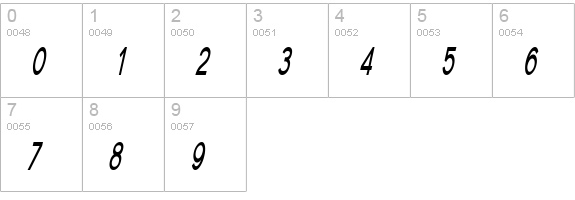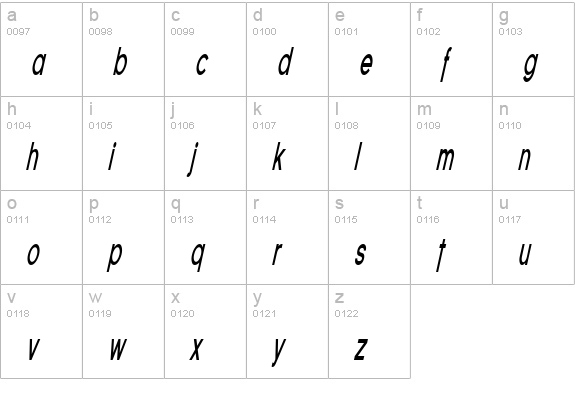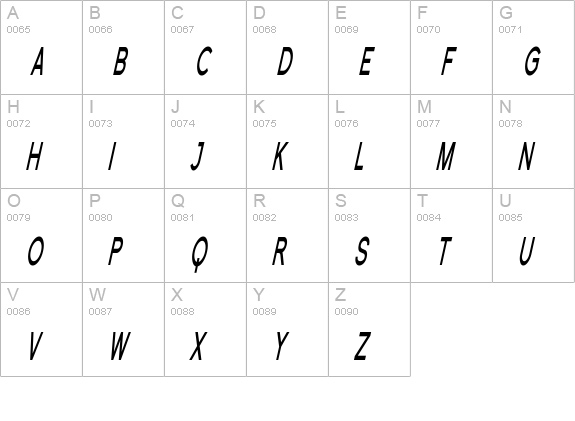
Florencesans Comp Bold Italic Font Details
Florencesans Comp Bold Italic is a strong, high-contrast, italic variant in the Florencesans typeface family \xE2\x80\x94 well suited to headlines, attention-grabbing titles, and strong calls-to-action.
Florencesans Comp Bold Italic is a modern and sophisticated typeface that exudes elegance and professionalism. Its bold yet graceful design makes it perfect for adding a touch of luxury to any project. The italicized style adds a sense of dynamism and flair, making it ideal for conveying a sense of creativity and innovation. This font is not only visually striking but also highly versatile, suitable for a wide range of design projects including branding, advertising, web design, and more. Whether you're looking to make a bold statement or add a touch of sophistication, Florencesans Comp Bold Italic is sure to elevate your designs to the next level. Best of all, this stunning font is available for free download at FontsMarket.com. So why wait? Add Florencesans Comp Bold Italic to your font collection today and take your designs to new heights of elegance and style.